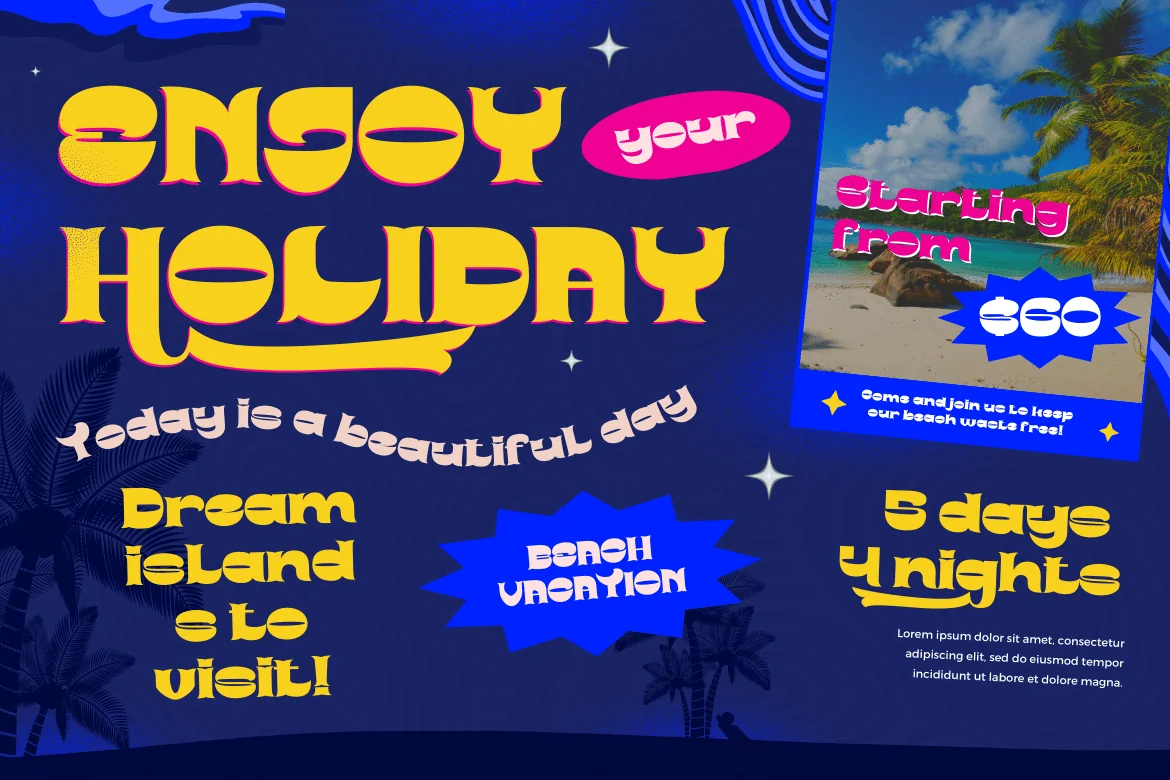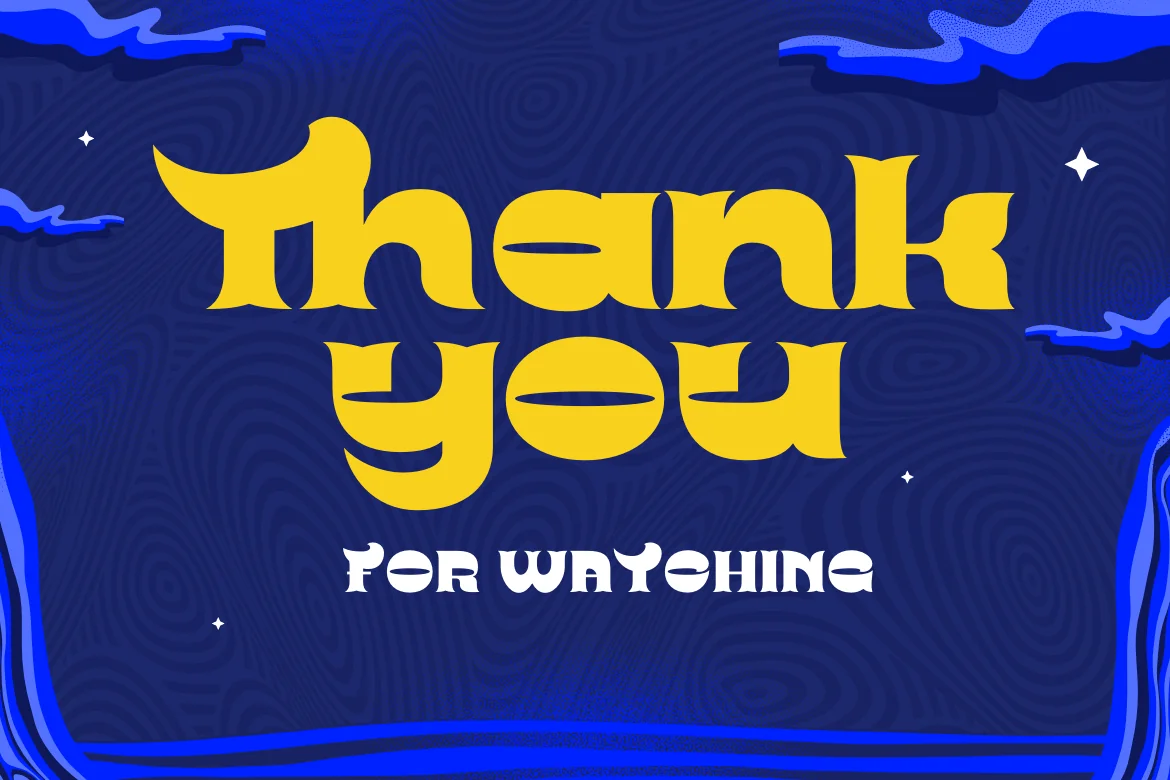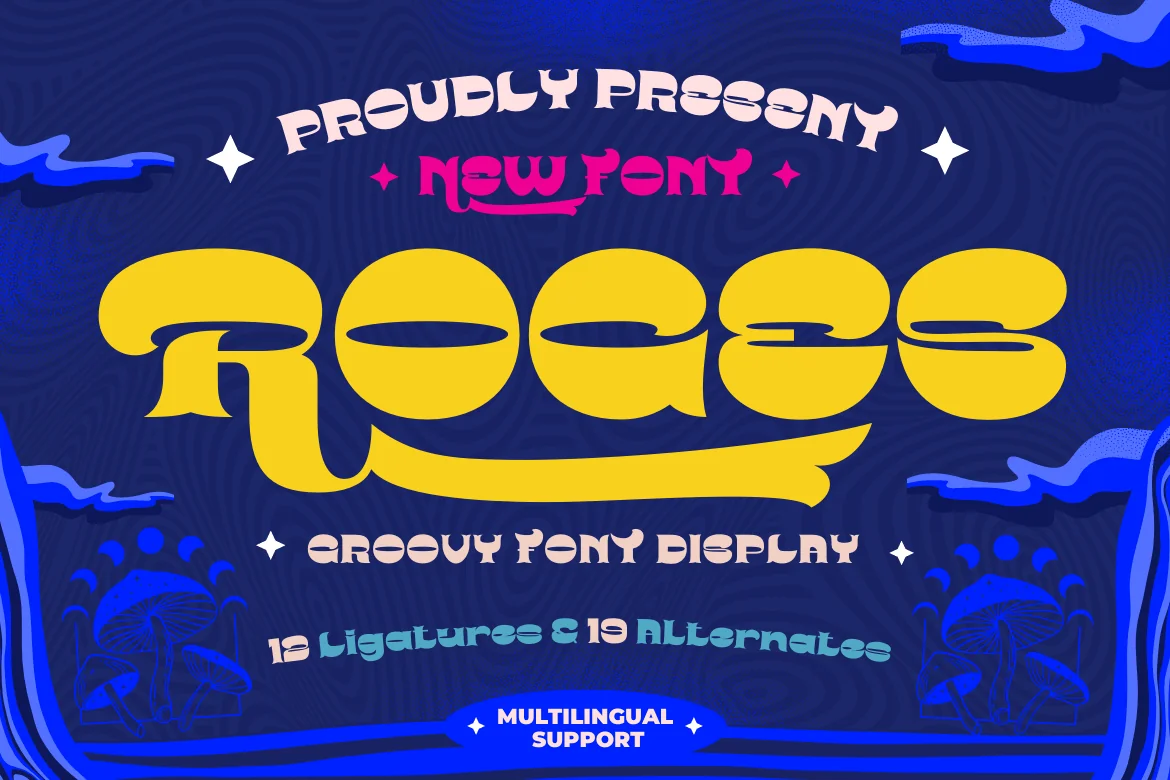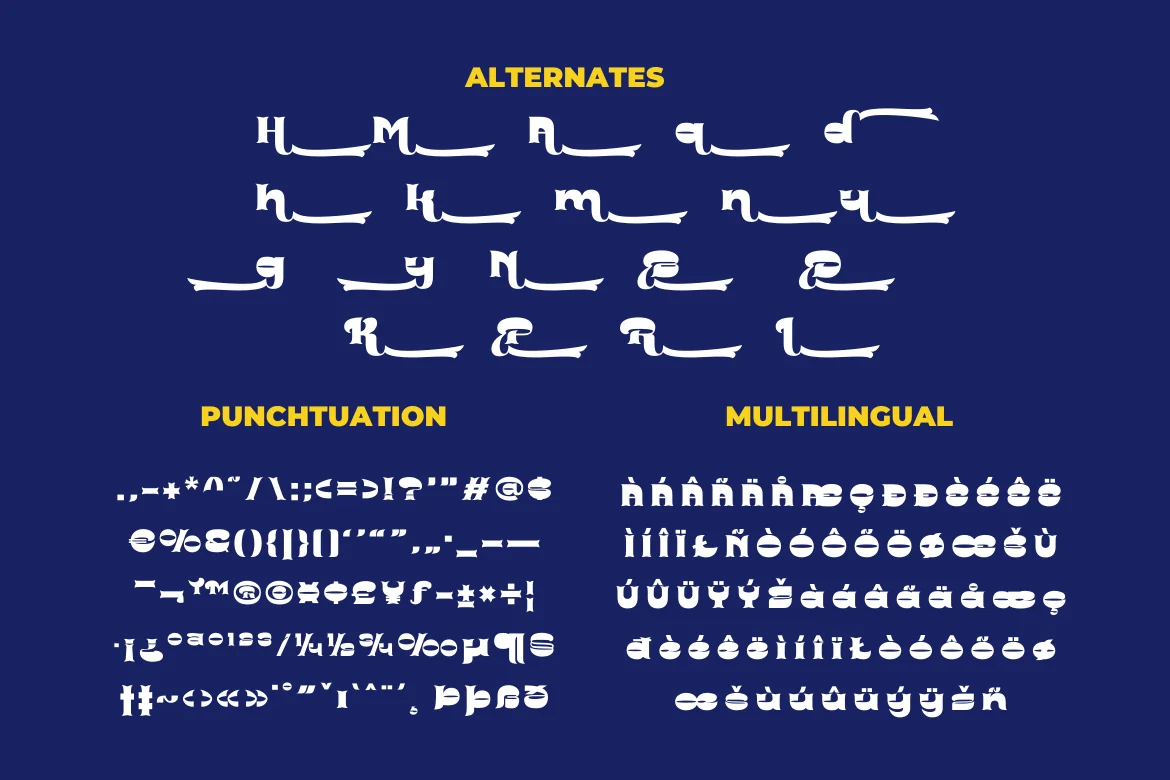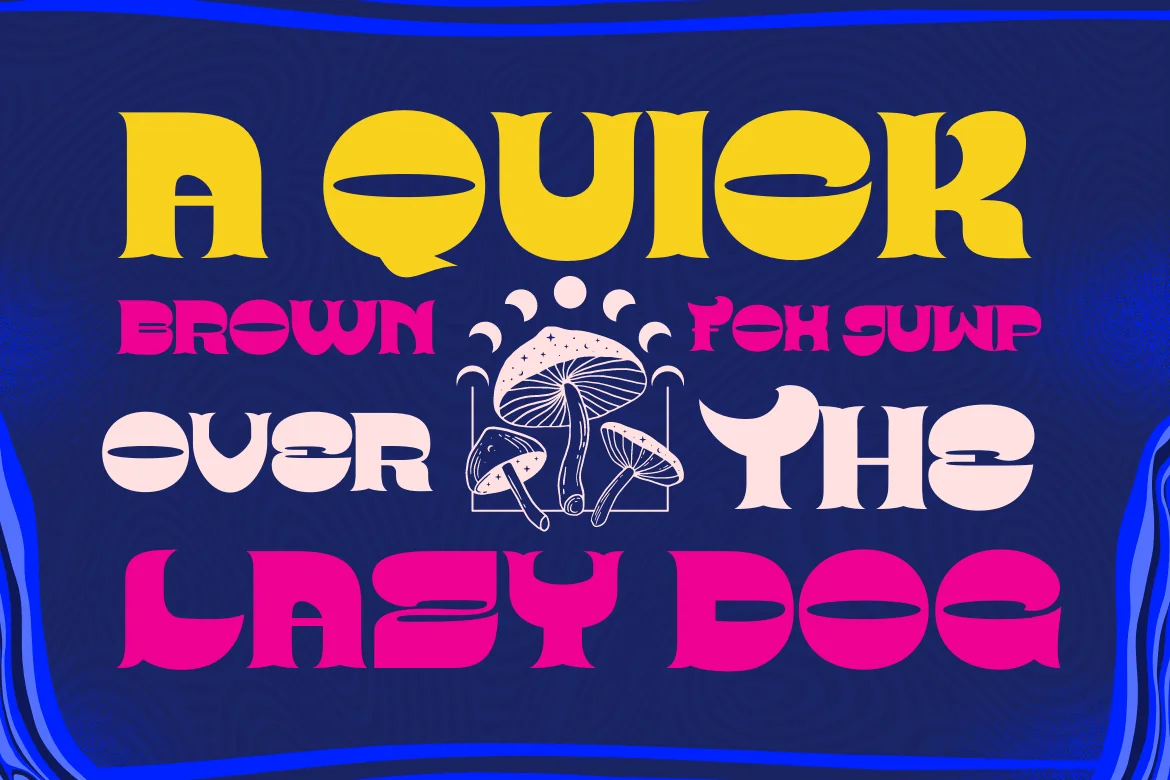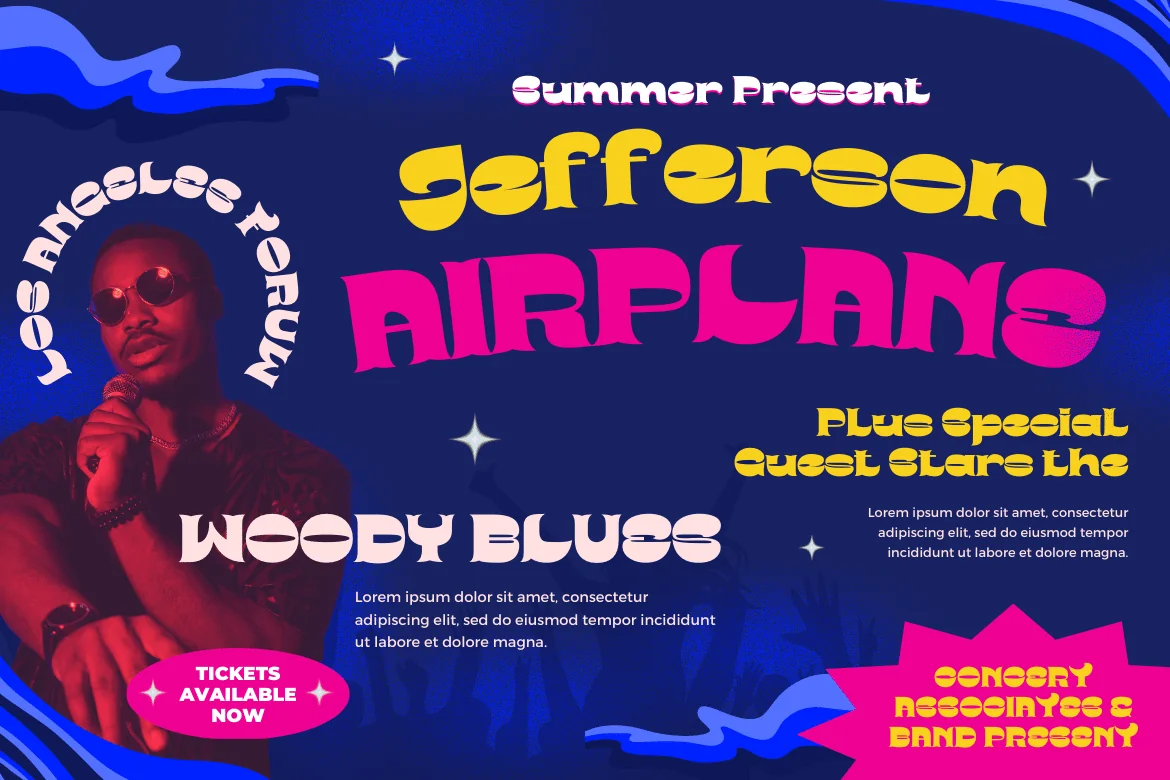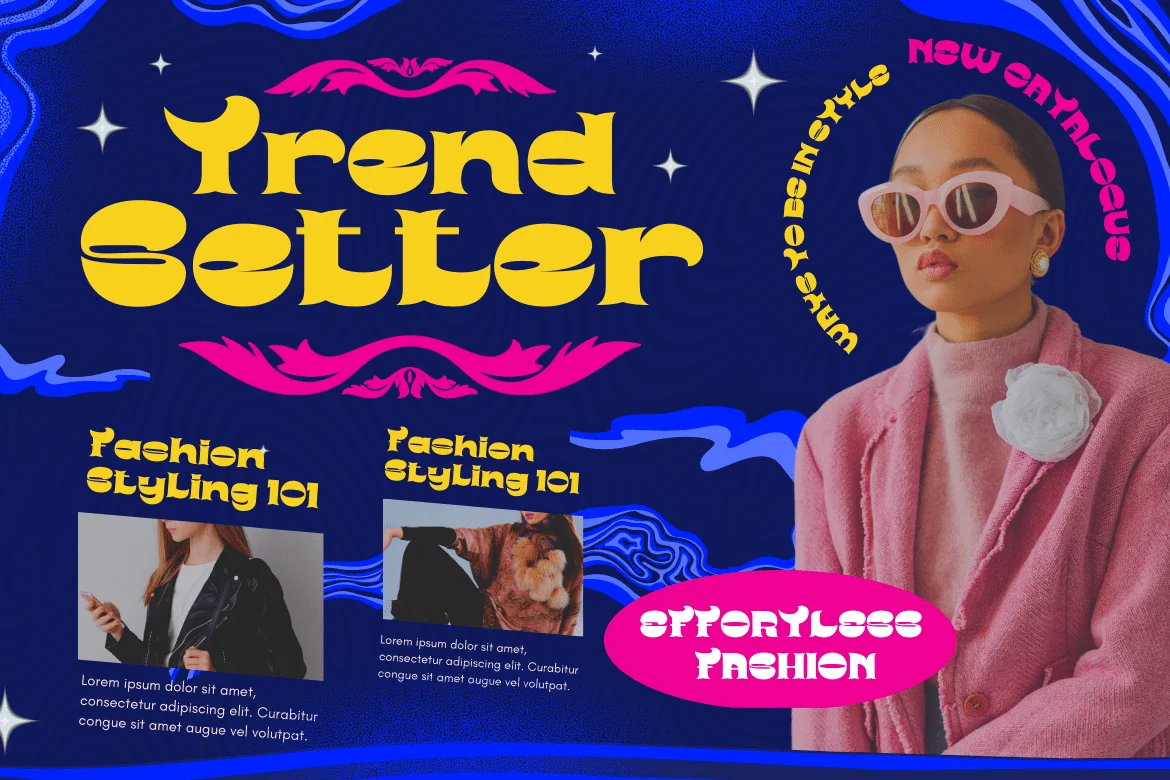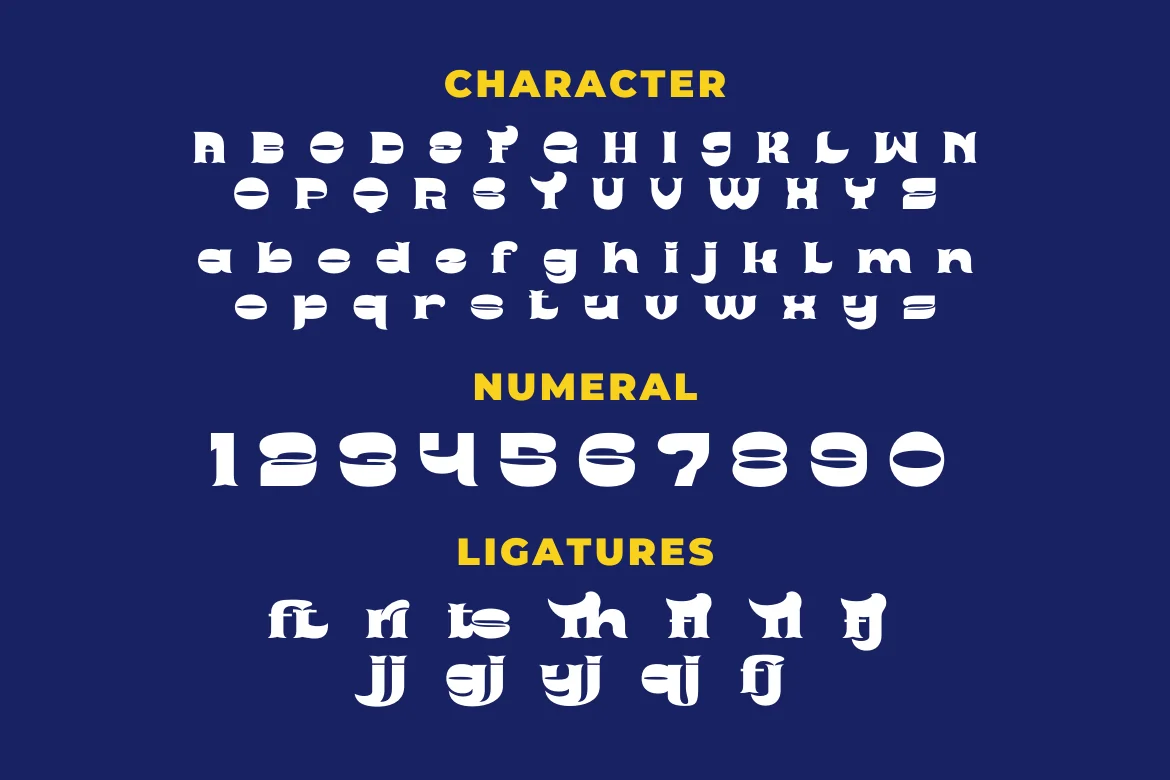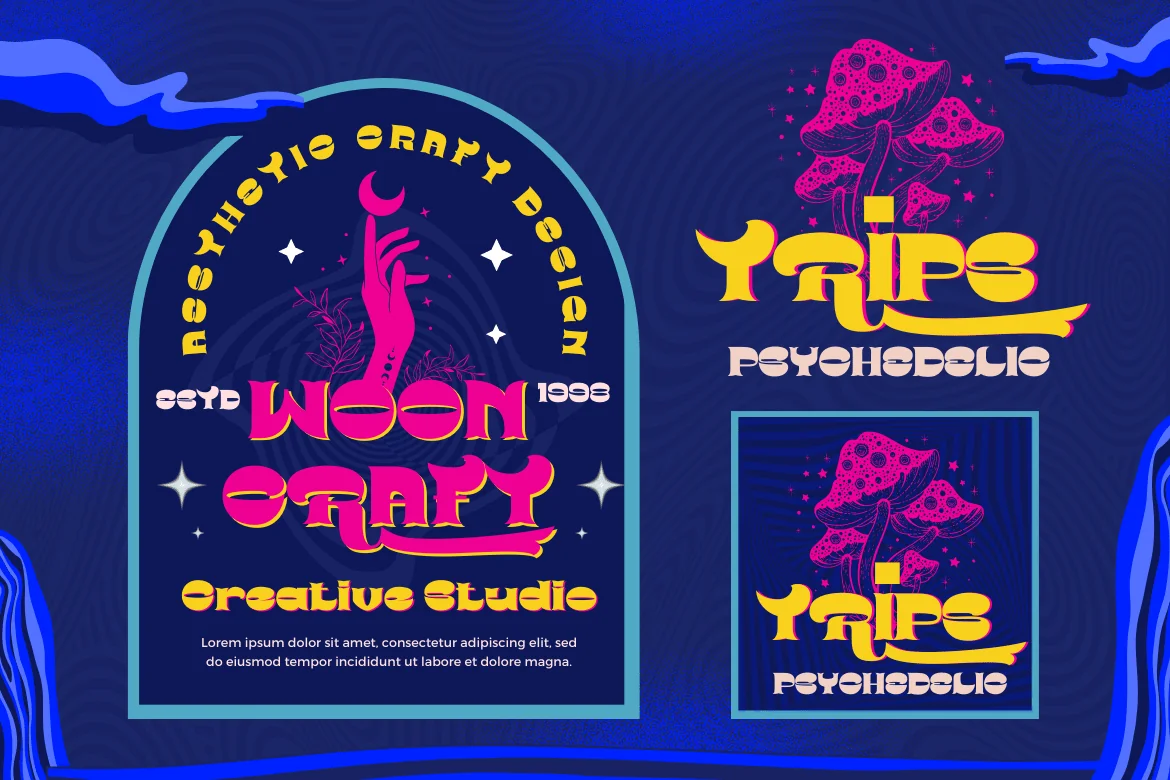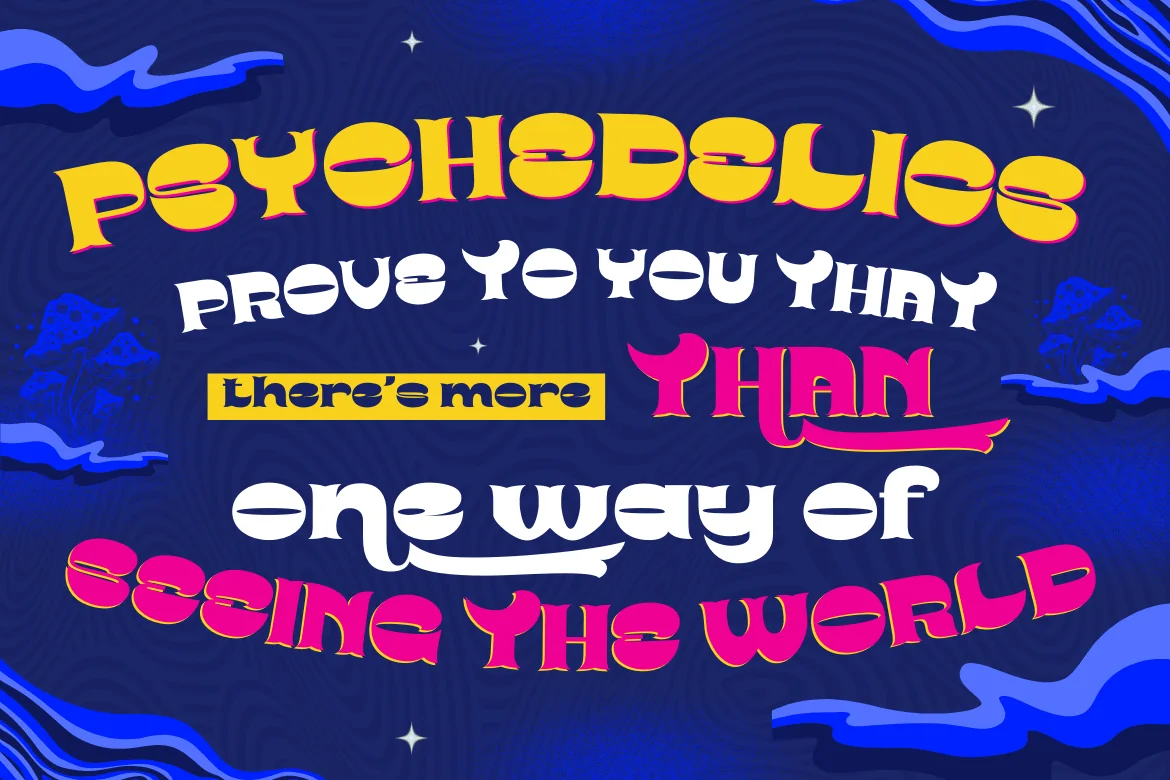
ROGES | Groovy Retro Font
Roges is a trippy hippie retro font that brings flowing handwriting to your text graphics. This font provides a great complement to your project, multiple character alternatives that add subtle wiggles and beautiful title matches create some surprises in the perfection of the look of your project, hurry up to create an amazing project with this font now.
- All glyphs Iso Latin 1
- Alternate, Ligature